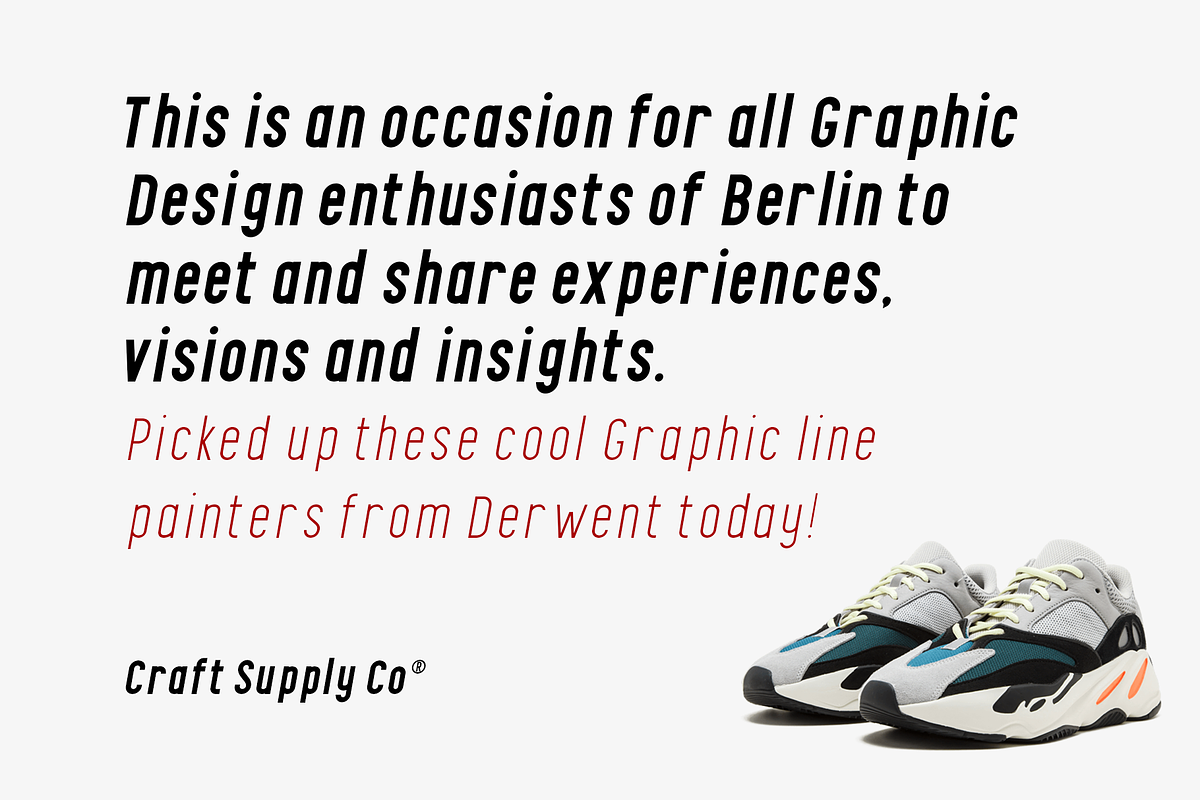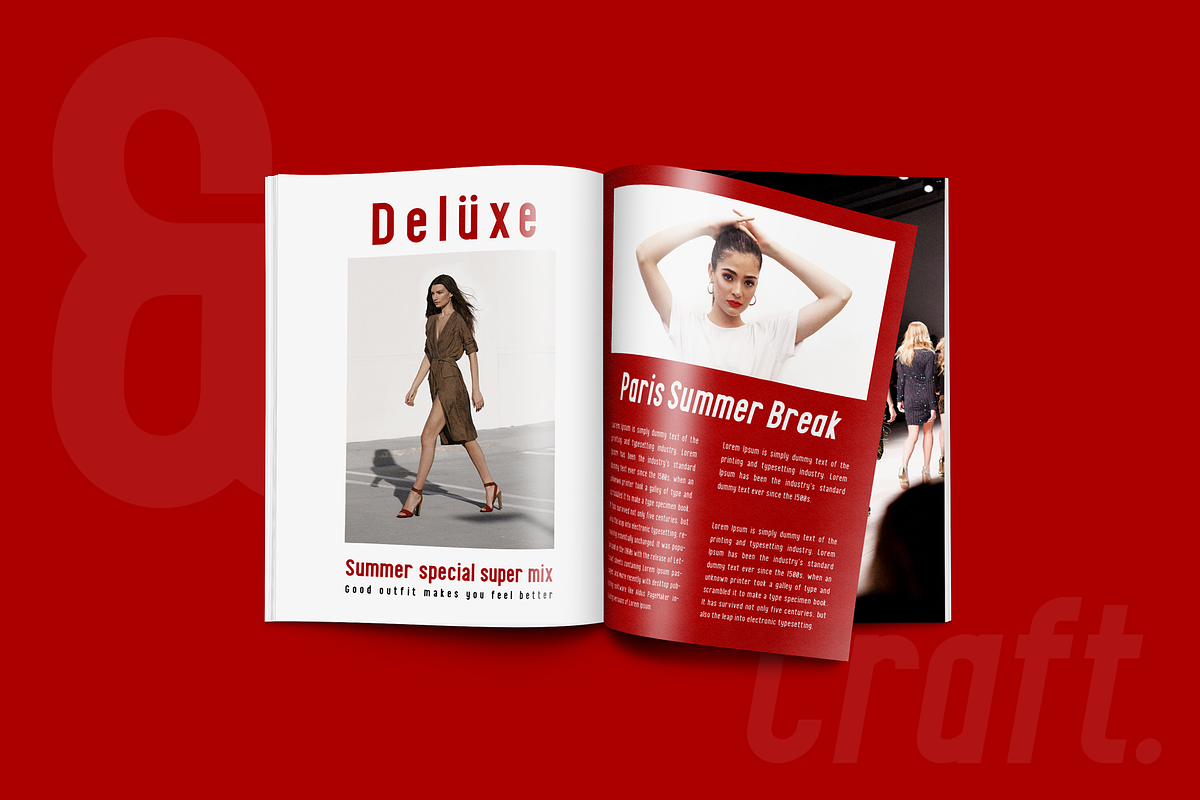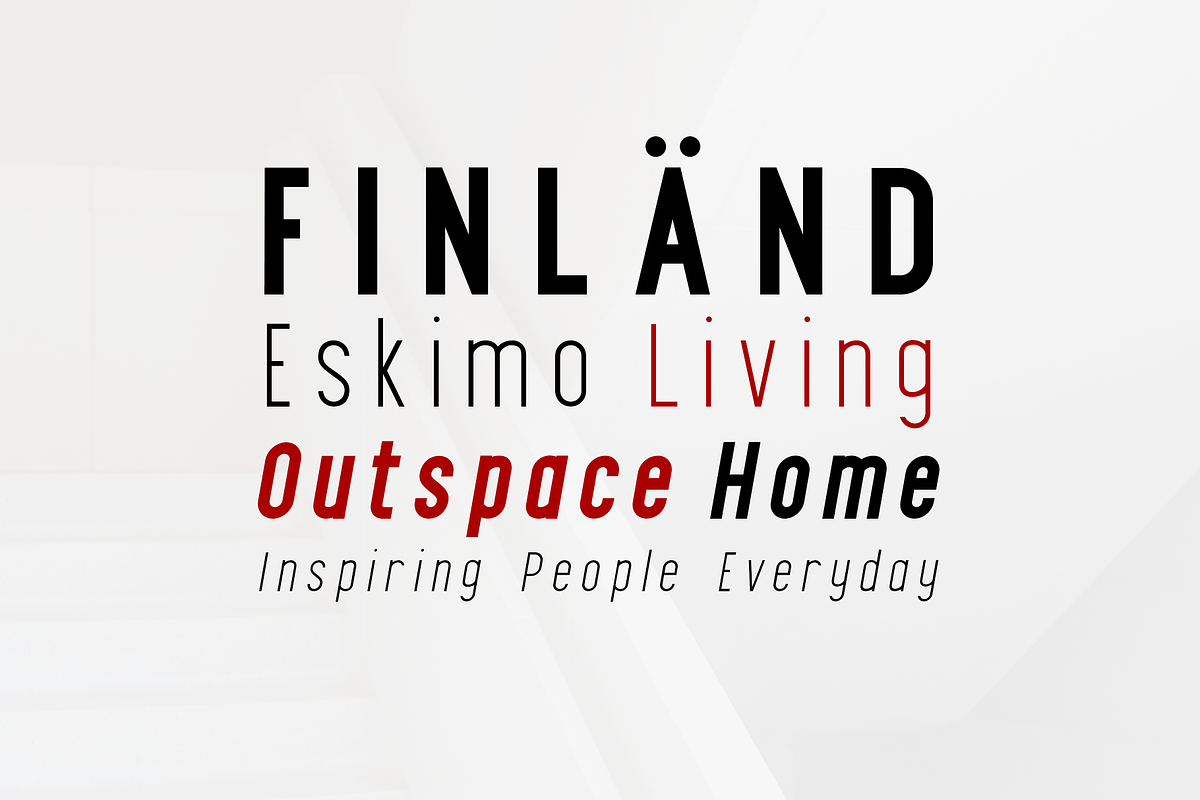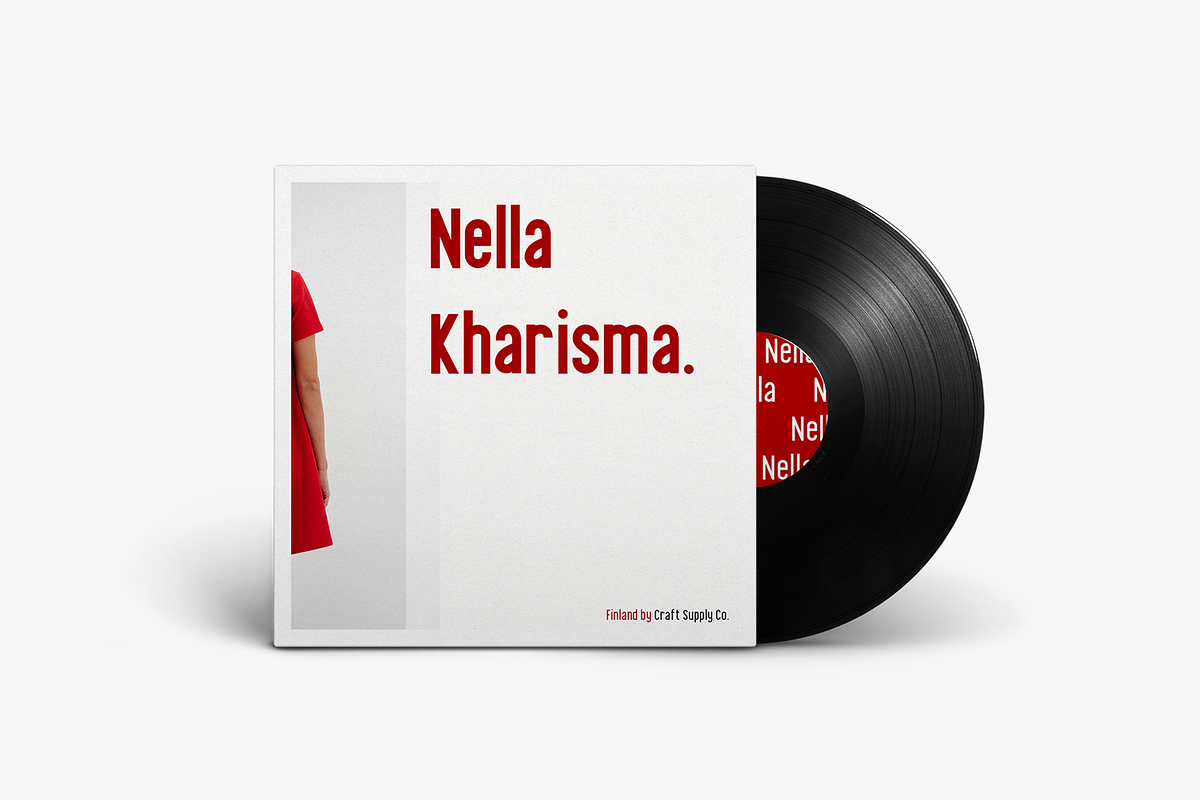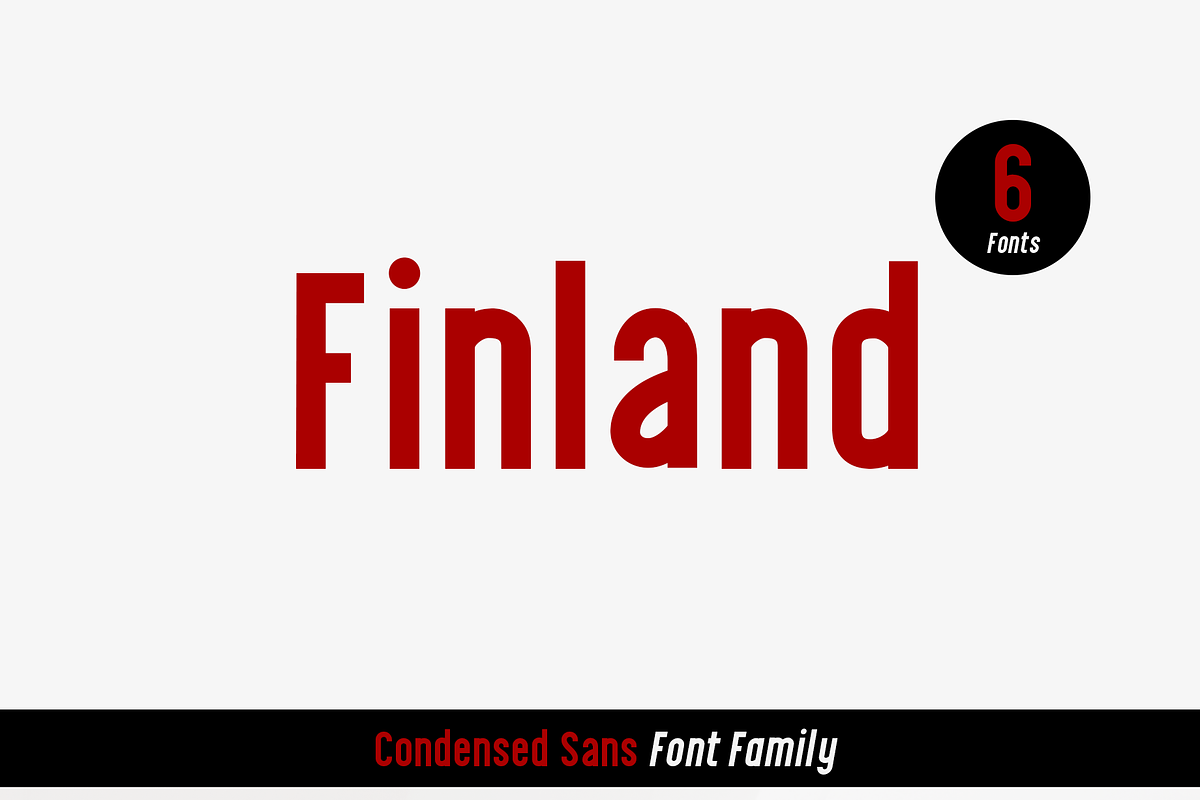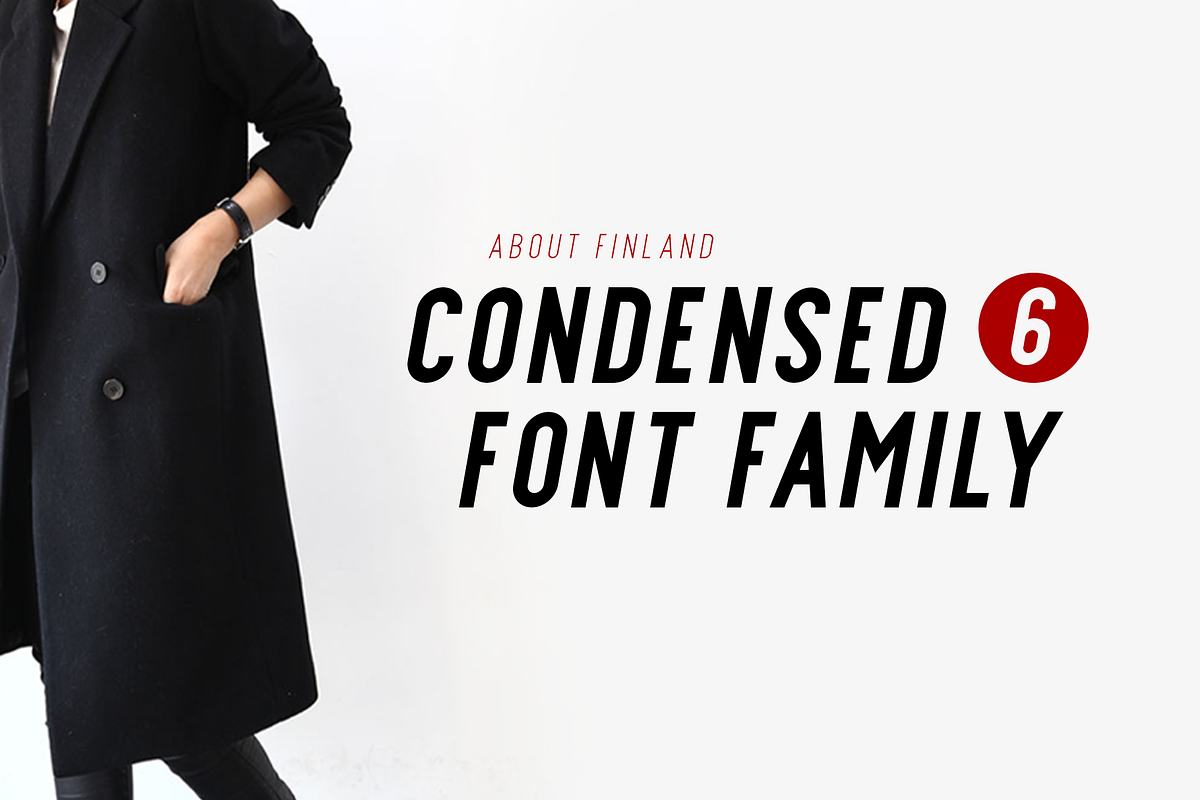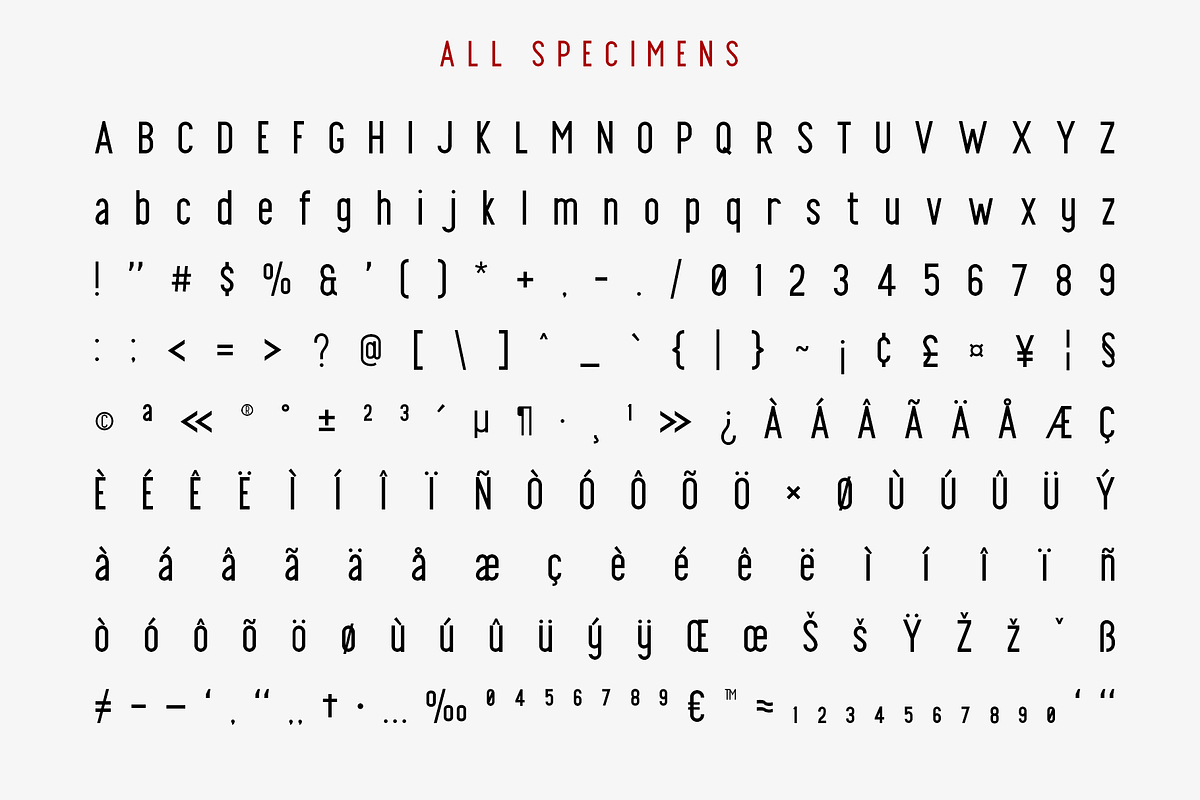
Finland Font Family
Introducing New Font : Finland Font Family - 6 Fonts
Finland Font Family was inspired by the European type specimen books, especially Finland type standard. Delivering some glorious vibes of the solid values from the pioneers and keeping one eye on todays demands and technology, Finland is made for high professional use.
Finland Font Family has been crafted from scratch with a structural logic of its own: a fusion of pure geometry and optical balance. Finland font family comes with 6 Styles, Regular, Italic, Thin, Thin Italic, Bold, Bold Italic. By combining a variety of styles Finland Font Family is suitable for Logo, greeting cards, quotes, posters, branding, name card, stationary, design title, blog header, art quote, typography
Finland Font Family also suitable for art, modern envelope lettering or book design, happening style like handdrawn design or watercolor design theme, craft design, any DIY project, book title, wedding font, pop vintage design, or any purpose to make our art/design project look pretty and trendy.
1. Upper Case & Lowercase
2. Stylistic Alternates
3. Standart Ligatures
4. Numerals & Punctuations (OpenType Standard)
5. Accents (Multilingual characters)